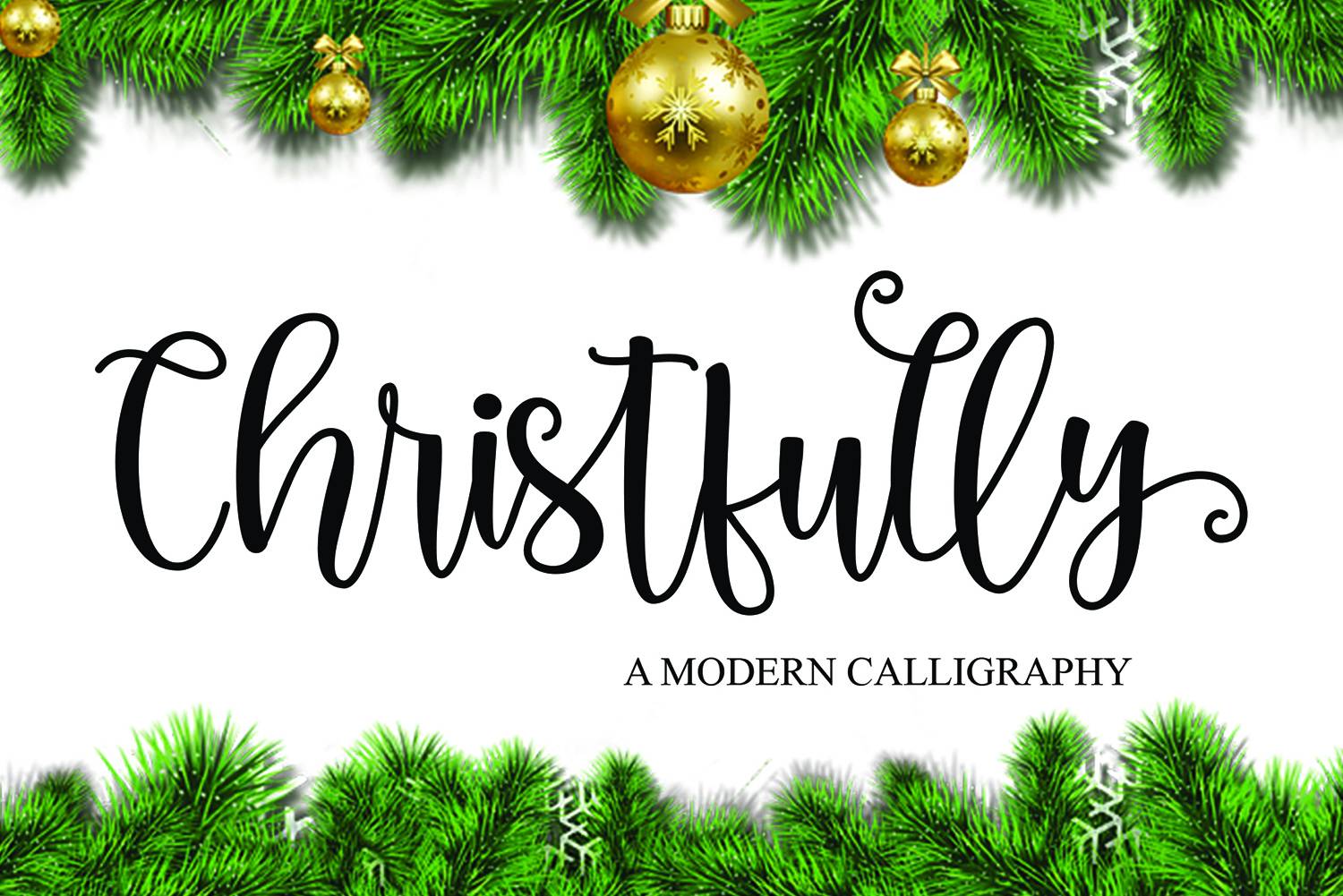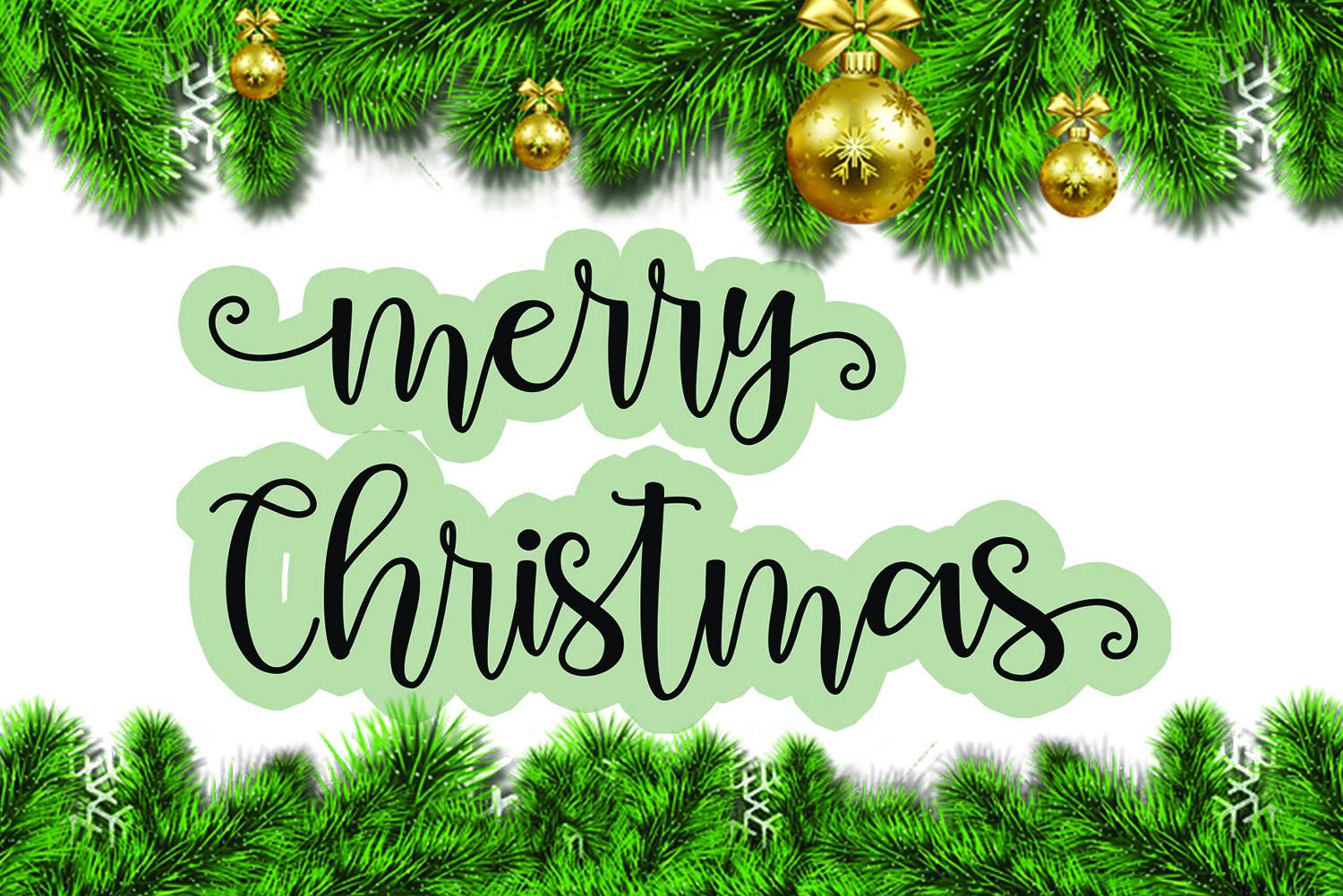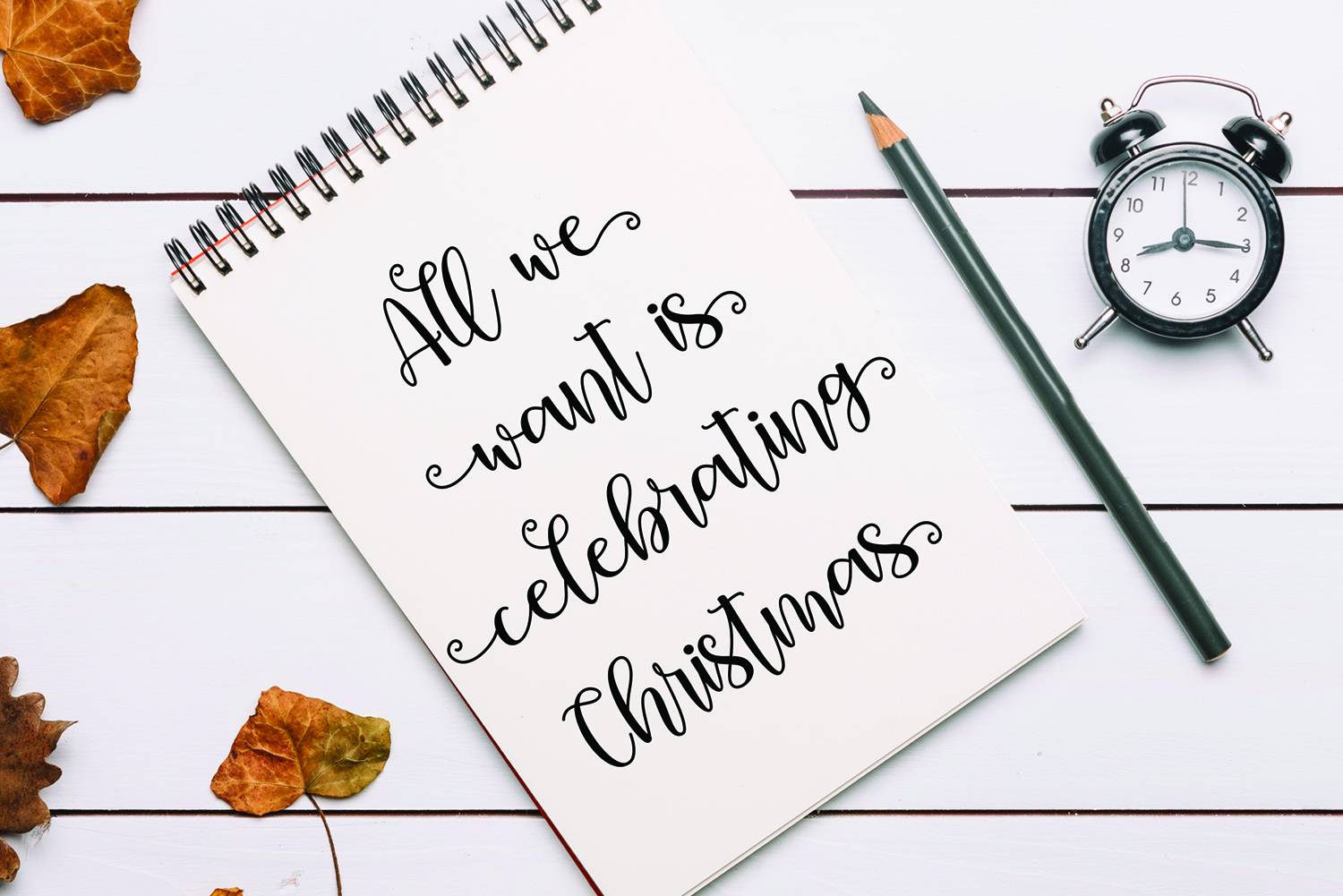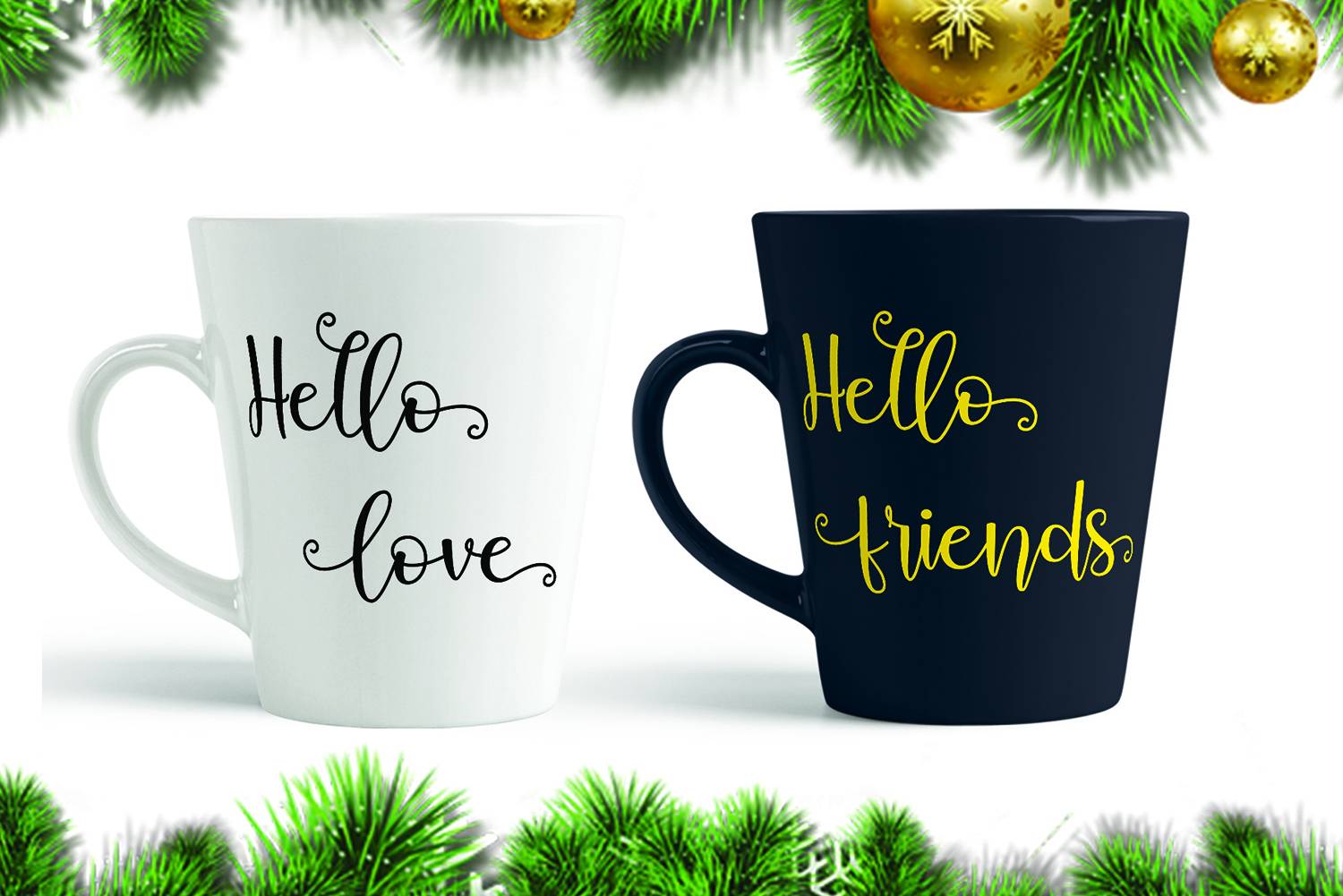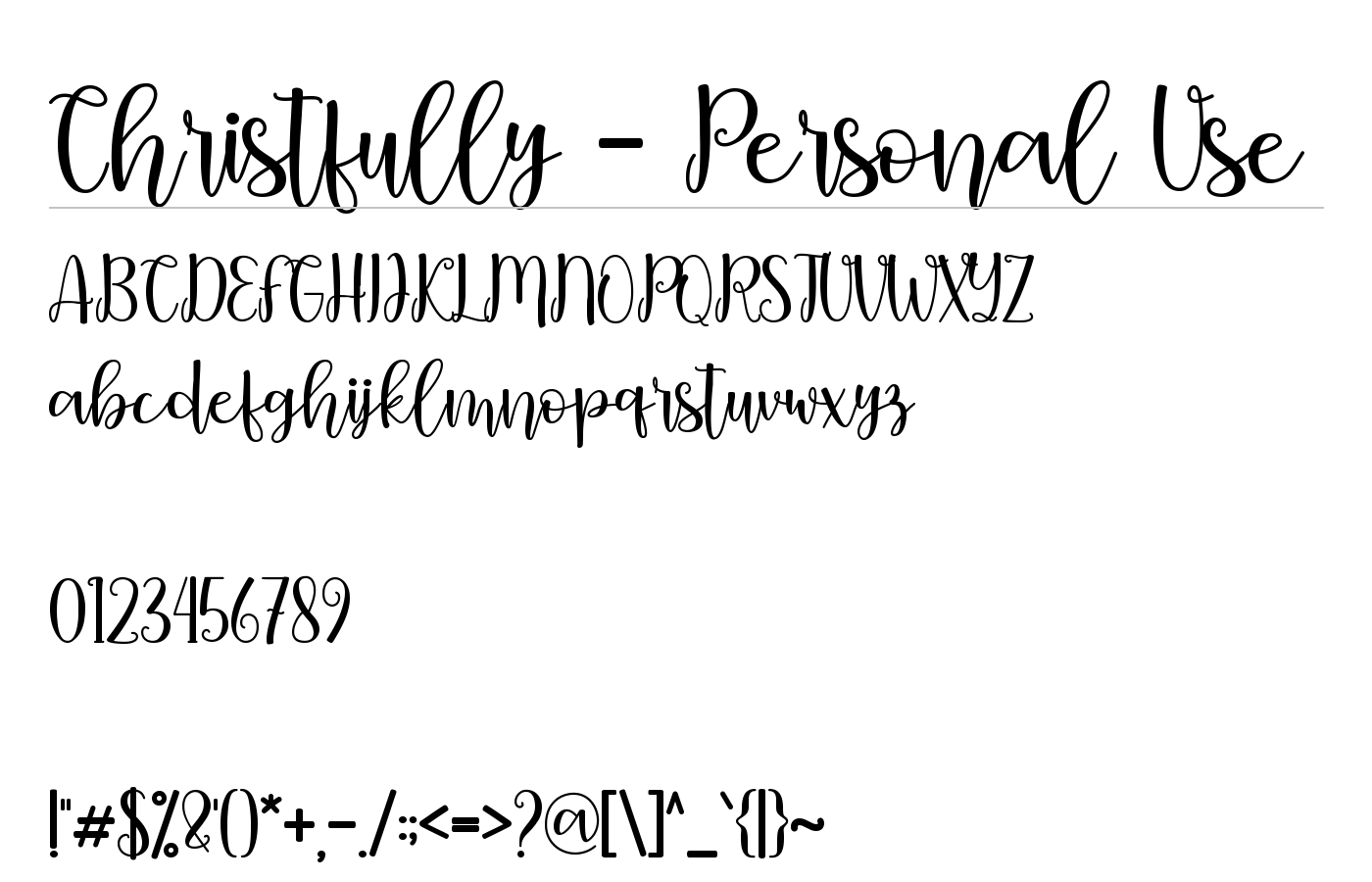
Christfully is a charming, handwritten script font with a playful and elegant feel, featuring tall, slender letterforms and delicate swirls that add a personal, artistic touch. Its light weight and airy spacing make it perfect for designs that aim to convey warmth and sophistication, such as greeting cards, invitations, and creative branding. This font works especially well for projects that want to blend a casual yet refined style with a handcrafted, friendly vibe.
Christfully Font
About Christfully Font
| Font family | Christfully Font |
| Designer | Rashatype |